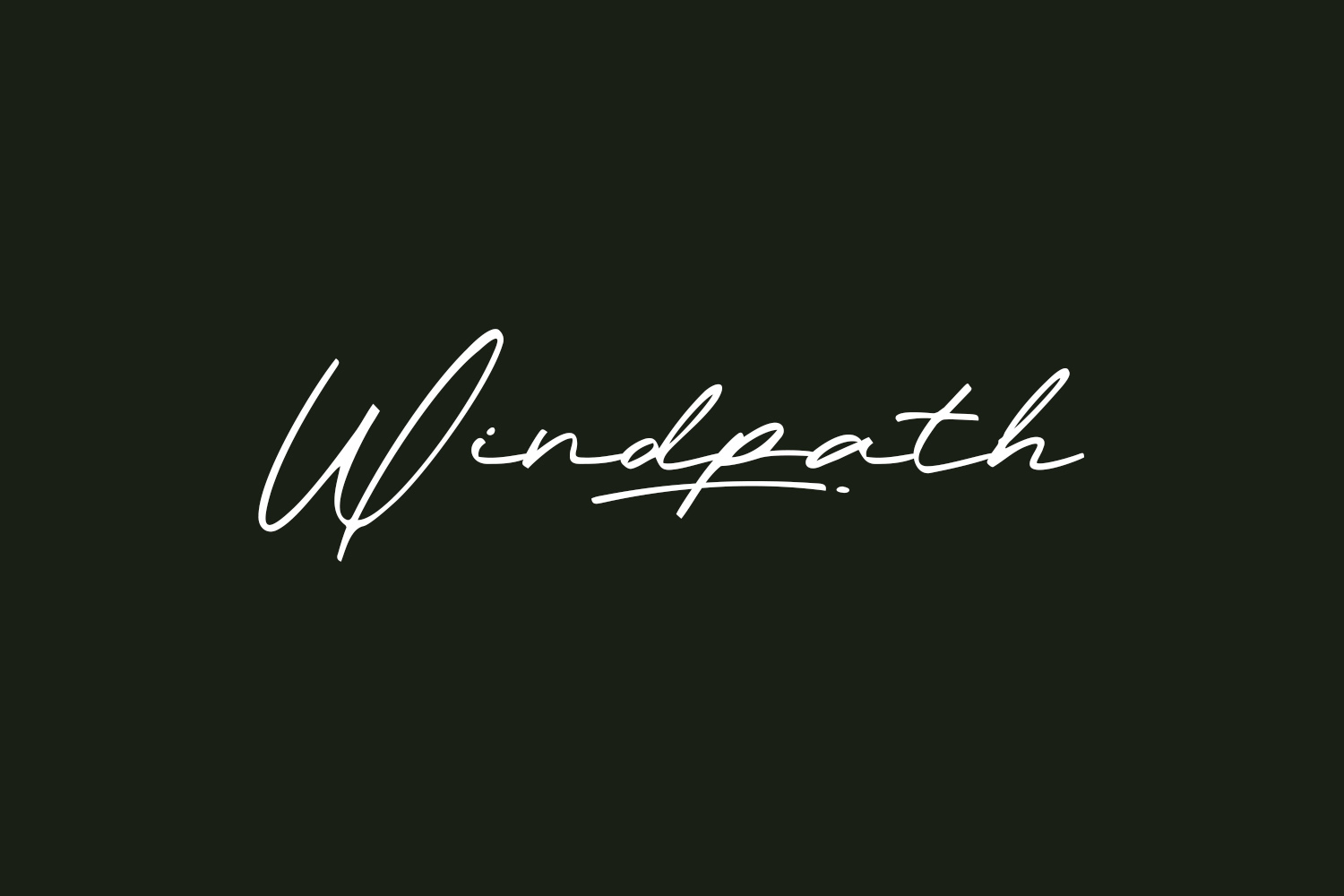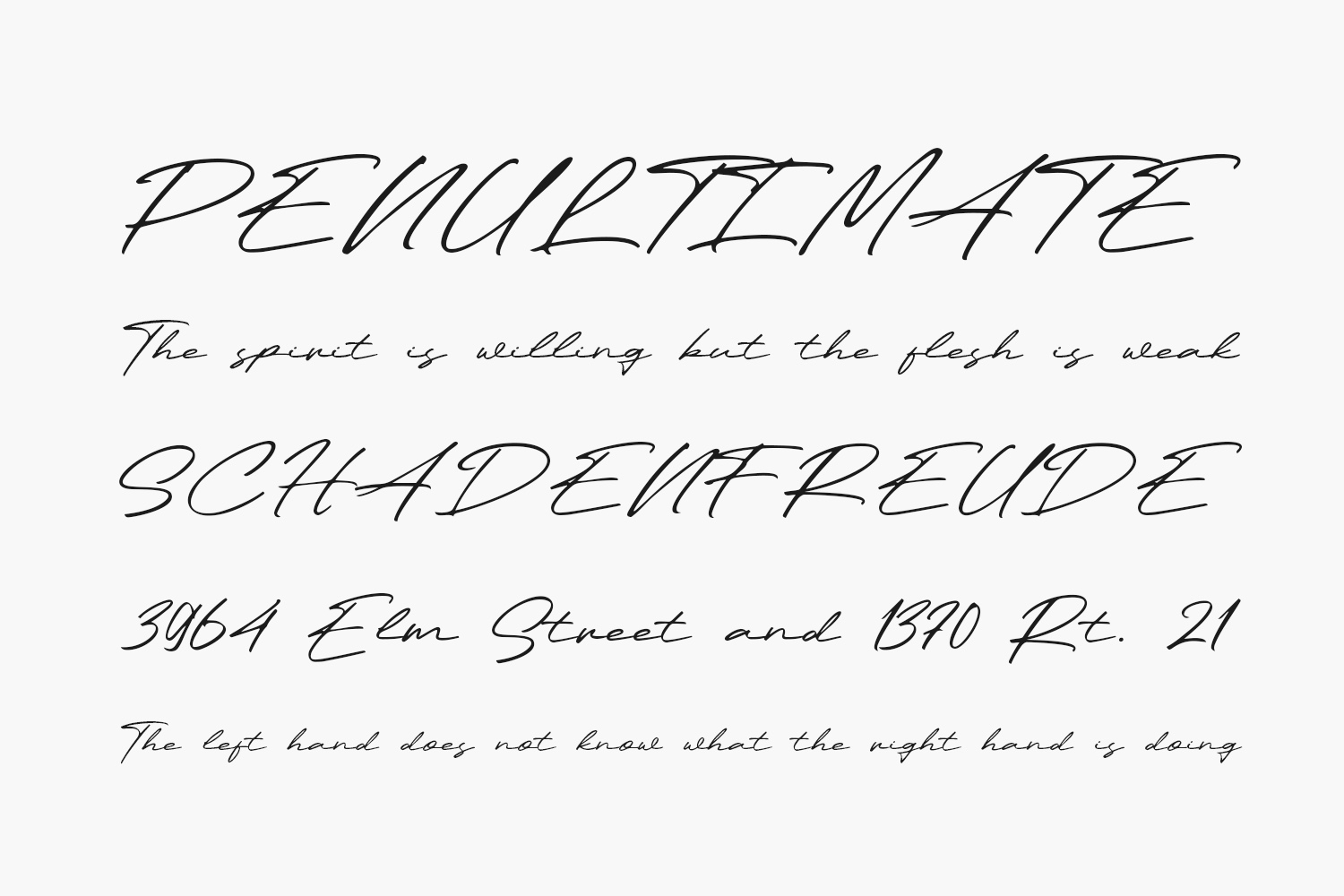
Explore the versatility of Windpath Free Font, a sleek, contemporary, and sophisticated script font designed for a range of applications such as posters, logos, magazines, book covers, banners, and more! Elevate your designs with this remarkable font, seamlessly adaptable to a diverse array of projects. Unleash your creativity and witness how Windpath effortlessly enhances and distinguishes your creative ideas. Windpath Free Font was designed by Khurasan and is free for personal use only. Please purchase the full version for commercial use.